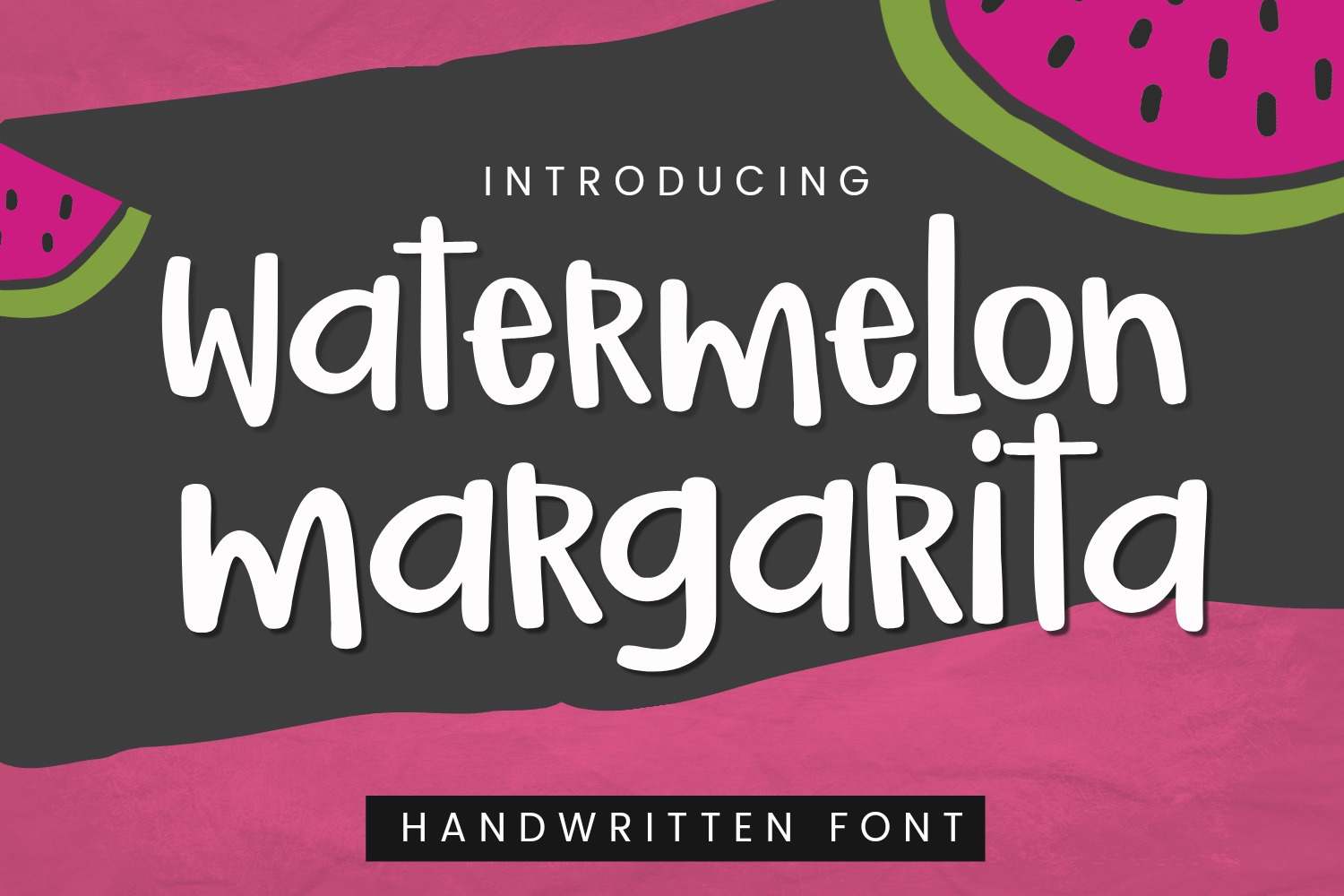
Watermelon Margarita Font
Watermelon Margarita is a fun, spunky font that is bold and smooth enough for cutting with Cricut & Silhouette crafting machines! It is available in ttf & otf file formats, and supports English and most Western European languages.